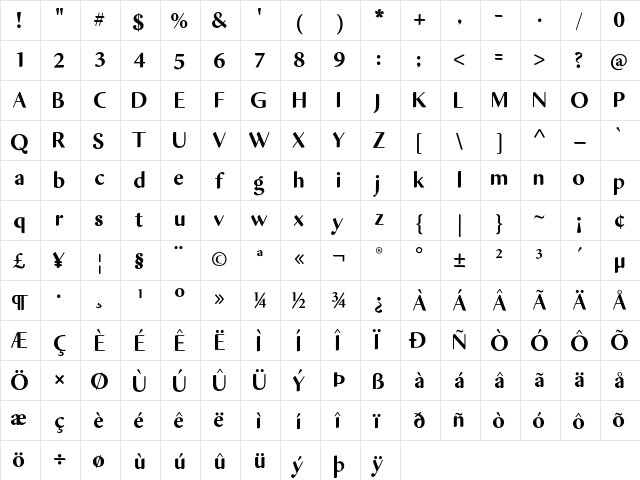
Asdaen Regular Regular
| Foundry | Malindo Creative |
| Designer | Maryanti |
Design Context for Asdaen Regular Typeface
Asdaen Regular is a composed and adaptable typeface that performs quietly and consistently across a wide range of design contexts.